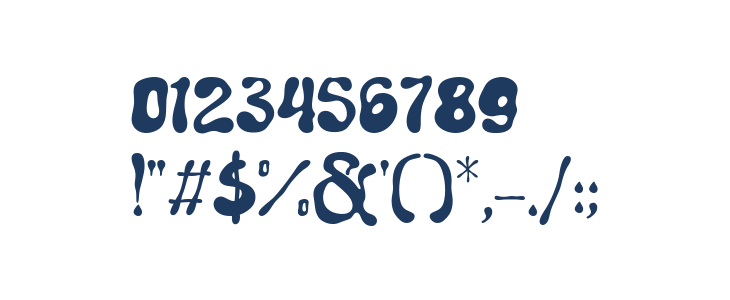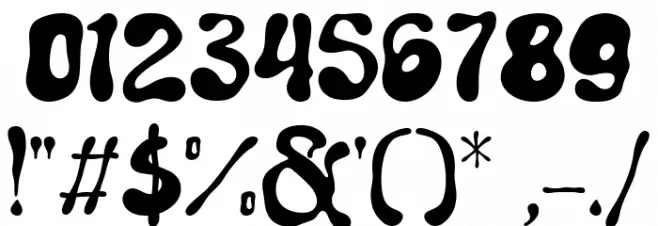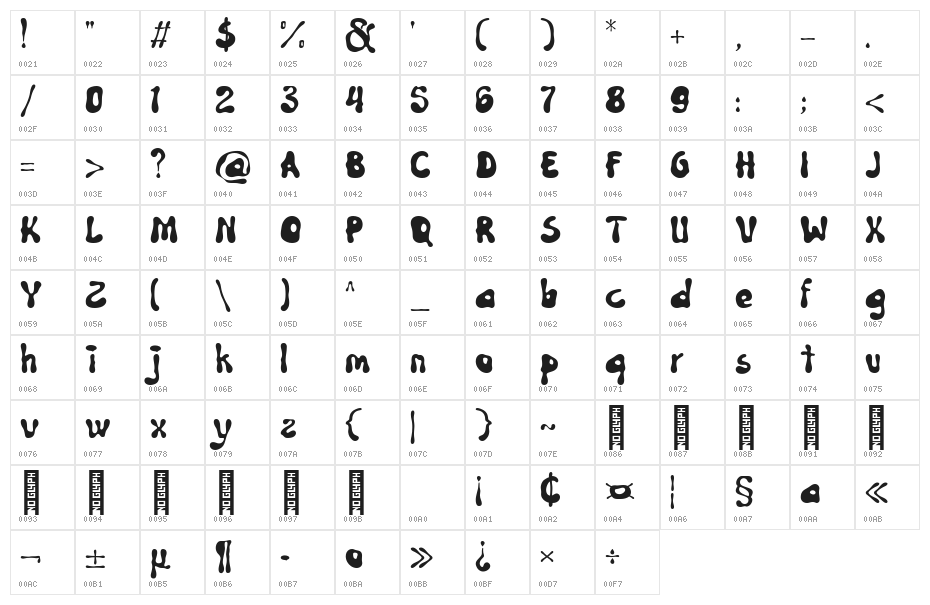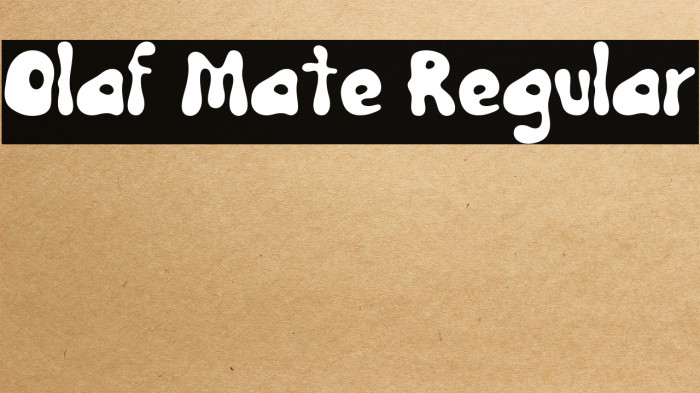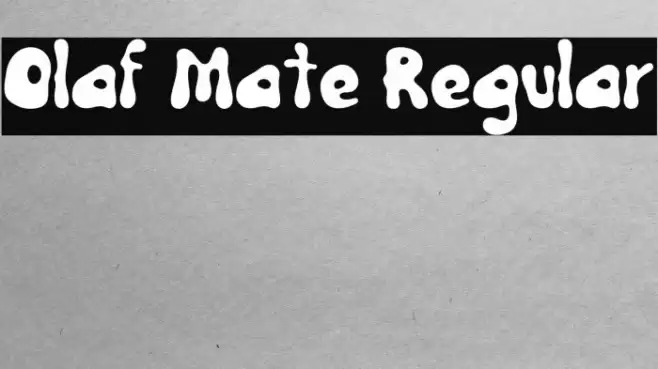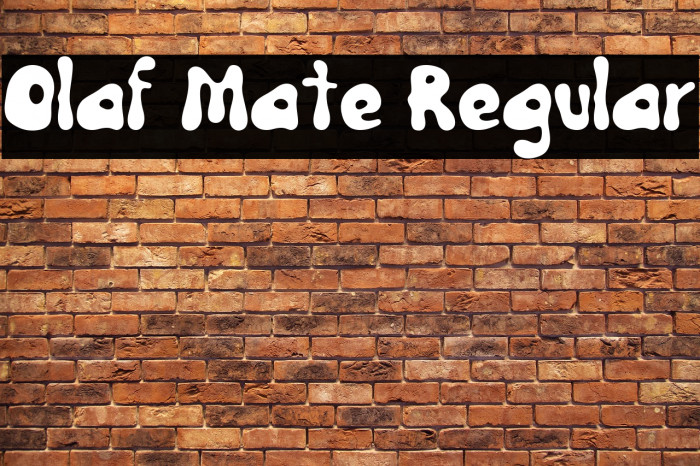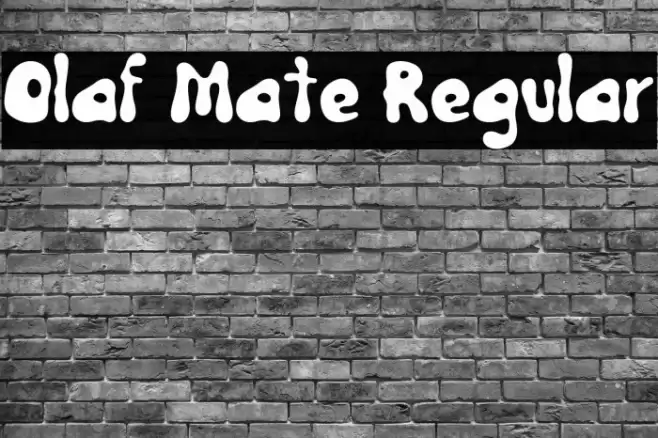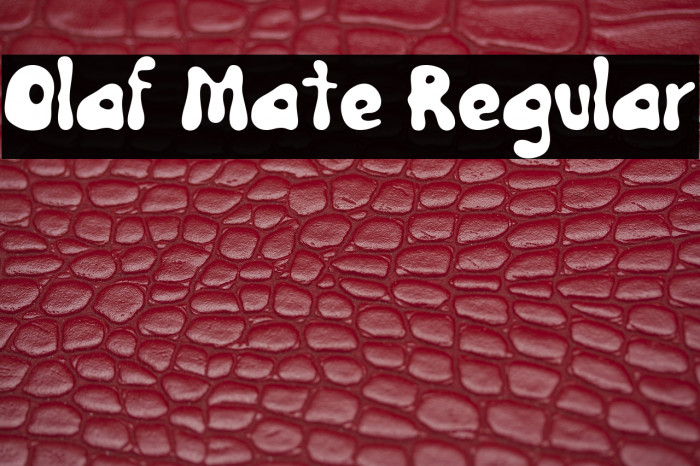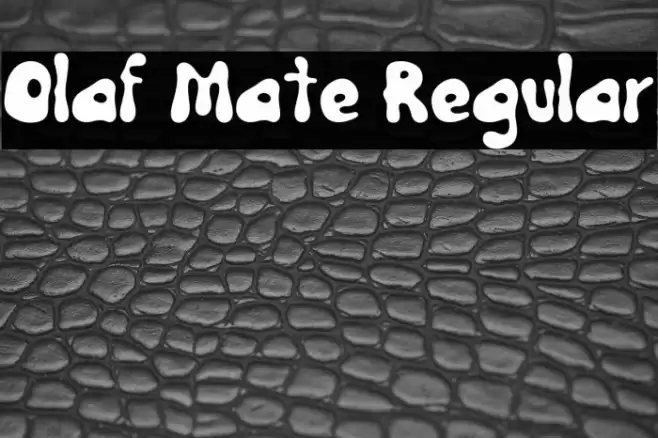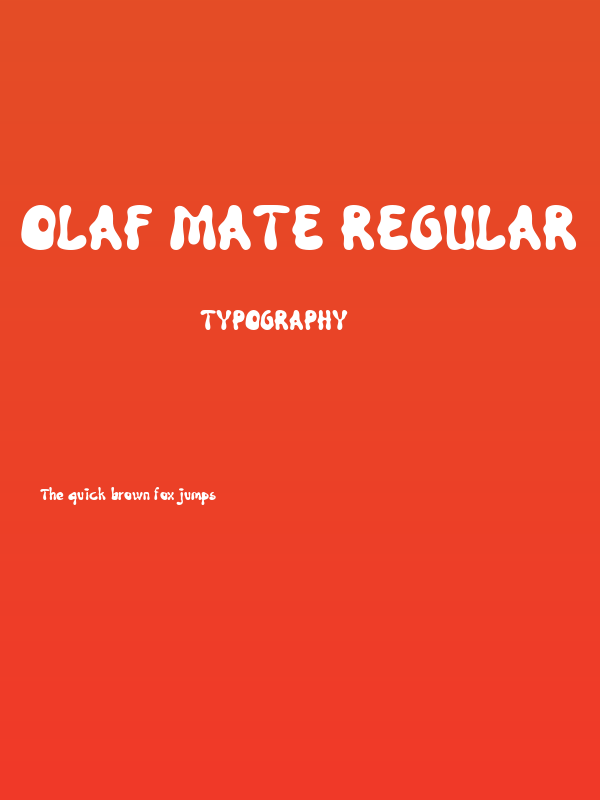
Olaf Mate Regular Font
Olaf Mate Regular Description
This font features a playful and bold design with a bubbly, organic feel. The characters are rounded and irregular, giving them a hand-drawn appearance. The uppercase and lowercase letters maintain a consistent style, with thick strokes and a whimsical touch. Numbers and special characters follow the same design principles, ensuring uniformity across all glyphs. The font's unique style makes it stand out, perfect for creative projects that require a fun and informal look.
| Proposed Projects | Ideal for children's books, playful branding, posters, and creative invitations. |